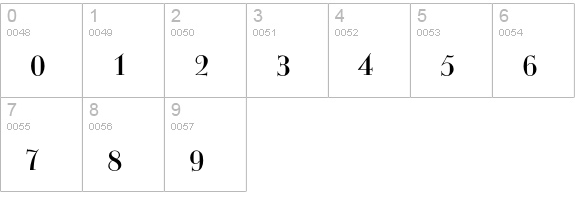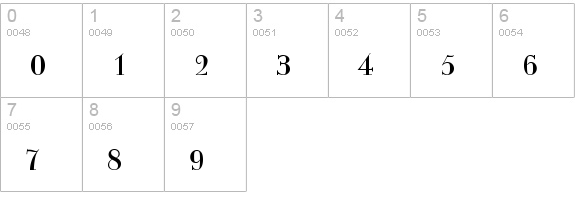
MonaLisaEF-Solid Font Details
MonaLisaEF-Solid is a stunning and elegant font that exudes sophistication and class. With its clean lines and graceful curves, this font is perfect for adding a touch of refinement to any design project. The timeless appeal of MonaLisaEF-Solid makes it suitable for a wide range of applications, from branding to editorial design. What makes MonaLisaEF-Solid even more appealing is that it is available for free download at FontsMarket.com. This means that you can easily access this beautiful font and use it in your projects without any cost. Don't miss out on the opportunity to enhance your designs with the elegance of MonaLisaEF-Solid - download it for free today!